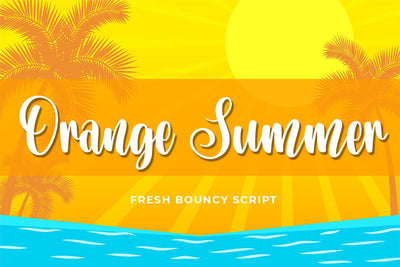
Orange Summer
introducing
ORANGE SUMMER
- fresh bouncy Script -
ORANGE SUMMER is great for quotes, branding, t-shirt designs, tote bag designs, cards, banners, social media, and anything of craft projects.